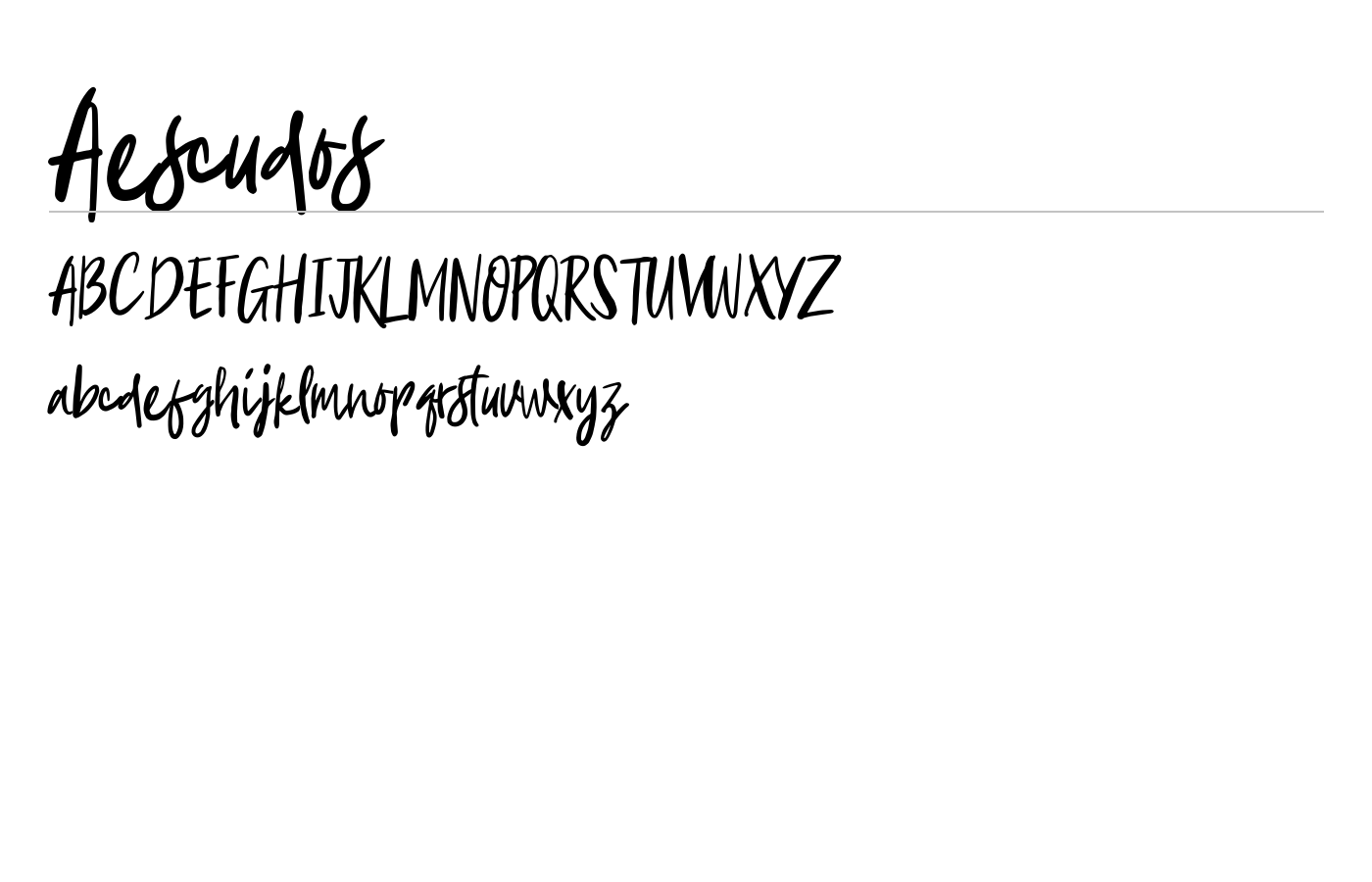
Aescudos is a lively, hand-drawn script font that combines casual charm with energetic strokes, making it feel warm and approachable. Its tall, narrow letterforms and playful yet legible style work beautifully for creative branding, informal headlines, and personal projects that seek a friendly, handwritten touch. Ideal for logos, social media graphics, and invitations, this font adds personality and expressiveness without compromising clarity.
Aescudos Font
About Aescudos Font